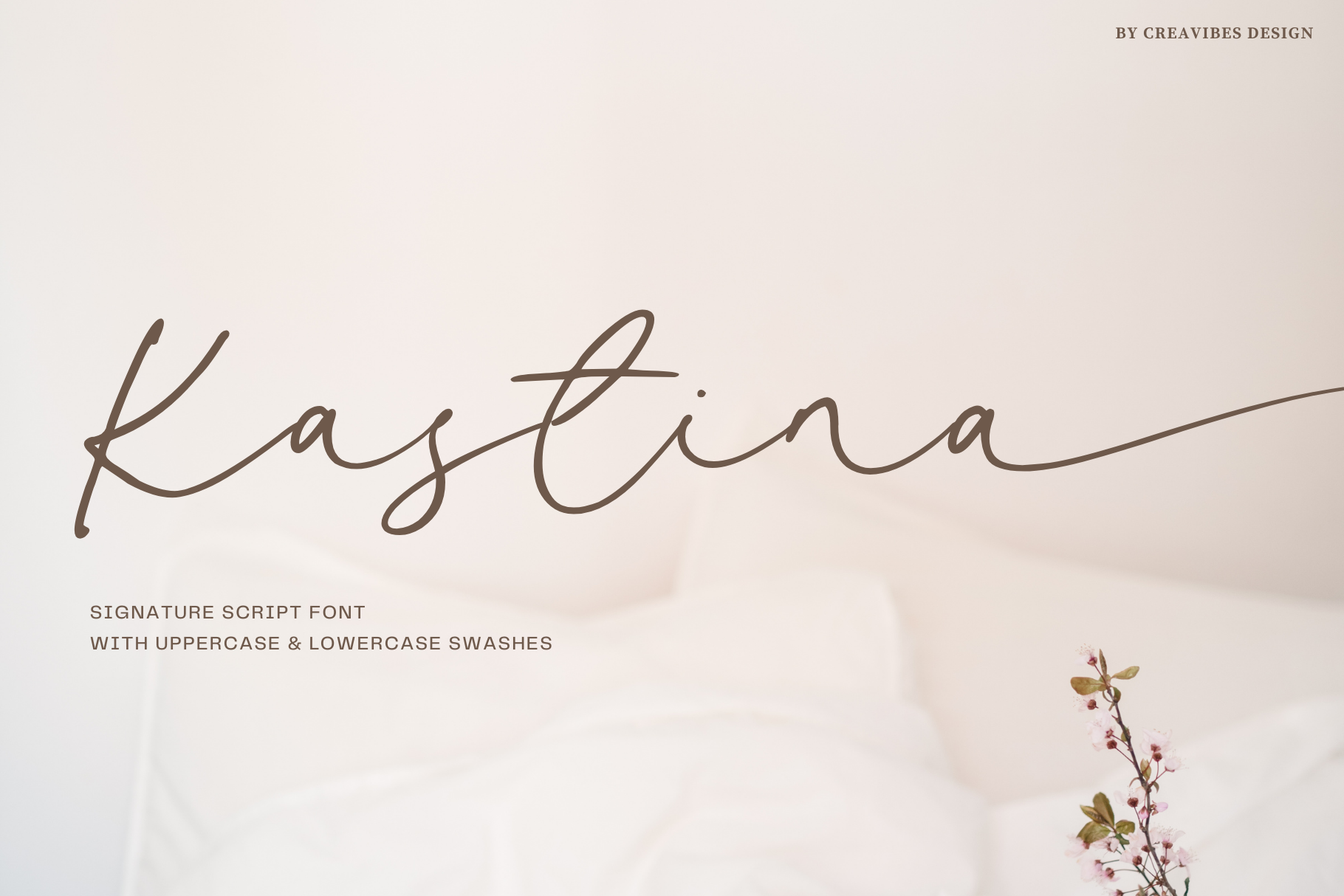
Kastina - Signature Script Font, this font is perfect for branding, invitation, stationery, wedding designs, social media posts, advertisements, product packaging, product designs, label, photography, watermark, special events, and more.
- Uppercase and lowercase letters
- Lowercase Beginning and Ending Swashes
- Multilingual, numerals, and punctuation